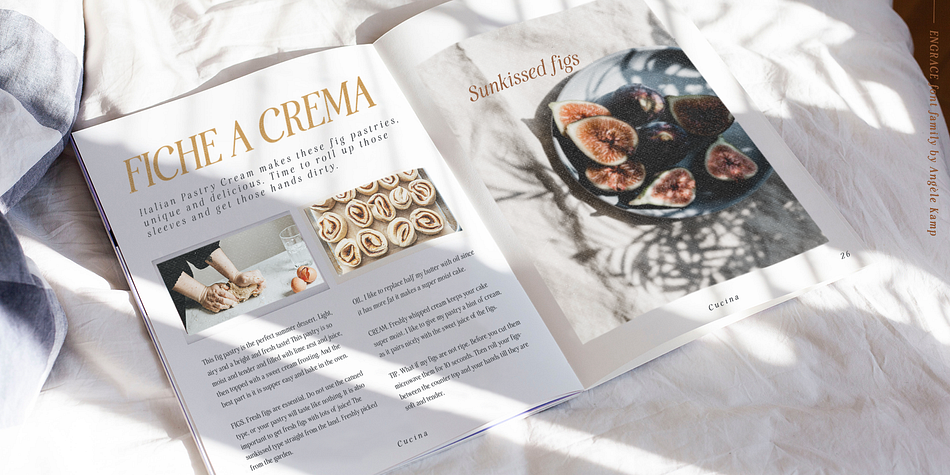
Engrace
Designed by Angèle Kamp, Engrace is a display serif and serif font family. This typeface has eight styles and was published by Angèle Kamp.
Meet Engrace, a serif font family with elegant & stylish curves. She’s romantic, classy and modern all wrapped into one, and surely can not be missed in your font collection.
Styles Display Serif, Serif
Designer Angèle Kamp